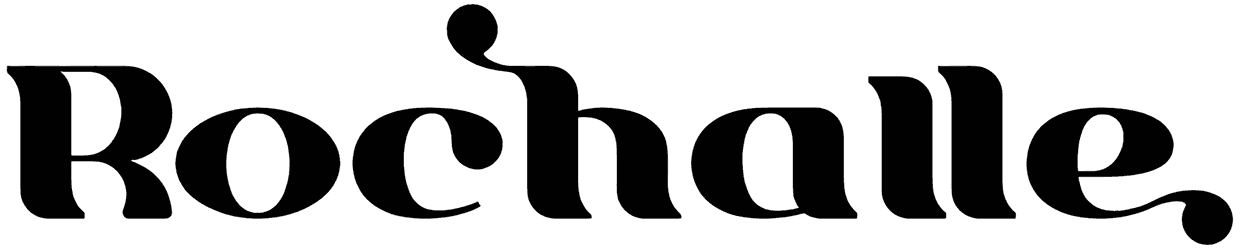
Rochalle Font
Do you want to portray a modern and original design with a special appearance? This unique classic font with its salient style is able to cause it to happen. With an almost full cover of characters, Rochalle can illustrate a lot of designs like posters, logos, business cards, or the like, and bring them a soft and silky mood.